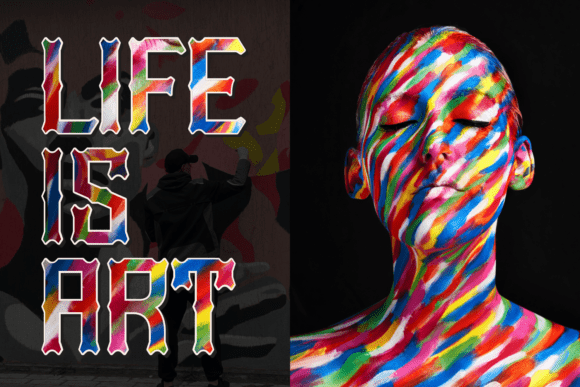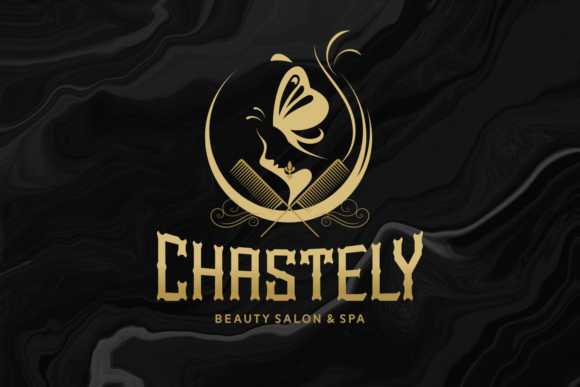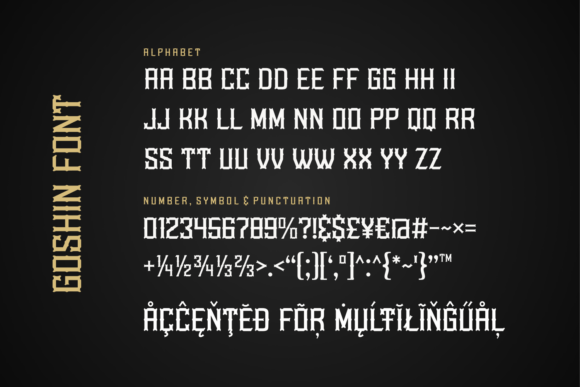
Introducing Goshin Font: The Modern Blackletter for Bold Designs
In the world of typography, fonts play a crucial role in conveying the tone and aesthetic of a brand or design. For designers and crafters looking for a unique and modern look, the Goshin font is an excellent choice. This modern blackletter font is heavily influenced by East Asian aesthetics, making it perfect for martial arts themes, gaming, and branding that requires a strong and modern look.
What is Goshin Font?
Goshin is a modern blackletter font that combines sharp, geometric lines with the elegance of East Asian design. The font’s creator aimed to blend the traditional blackletter style with the minimalist and sleek aesthetic commonly found in East Asian typography. The result is a font that is both bold and sophisticated, making it ideal for a wide range of design applications.
Key Features of Goshin Font
- Geometric Style: Goshin features sharp, geometric lines that give it a modern and edgy look.
- East Asian Aesthetic: The font is heavily influenced by East Asian design, making it perfect for martial arts themes, gaming, and branding.
- Blackletter Style: Goshin is a blackletter font, which means it features ornate and decorative lettering.
- Multilingual Support: The font supports multiple languages, making it a great choice for global brands and designers.
Use Cases for Goshin Font
Goshin is a versatile font that can be used in a variety of design applications. Here are some examples:
- Martial Arts Themes: The font’s East Asian aesthetic makes it perfect for martial arts themes, such as logos, posters, and brochures.
- Gaming: Goshin’s modern and bold style makes it a great choice for gaming-related designs, such as game titles, logos, and in-game text.
- Branding: The font’s unique style makes it an excellent choice for brands looking for a strong and modern look.
- Typography: Goshin can be used for typography-focused designs, such as posters, flyers, and social media graphics.
Why Choose Goshin Font?
There are many fonts available that offer a modern and bold style, but Goshin stands out from the rest. Here are some reasons why:
- Unique Style: Goshin’s blend of East Asian aesthetics and blackletter style makes it a unique and eye-catching font.
- High-Quality Design: The font is designed with high-quality craftsmanship, ensuring that it looks great in any design application.
- Easy to Read: Despite its ornate style, Goshin is easy to read, making it perfect for body text and headlines.
Tips for Using Goshin Font
Here are some tips for using Goshin font in your designs:
- Pair with Simple Fonts: Pair Goshin with simple fonts to create contrast and visual interest.
- Use for Headlines: Goshin’s bold style makes it perfect for headlines and titles.
- Experiment with Colors: The font looks great in bold colors, so don’t be afraid to experiment with different color schemes.
In conclusion, the Goshin font is a modern blackletter font that offers a unique and bold style. Its East Asian aesthetic makes it perfect for martial arts themes, gaming, and branding that requires a strong and modern look. With its high-quality design, ease of readability, and versatility, Goshin is an excellent choice for designers and crafters looking for a font that stands out from the rest.